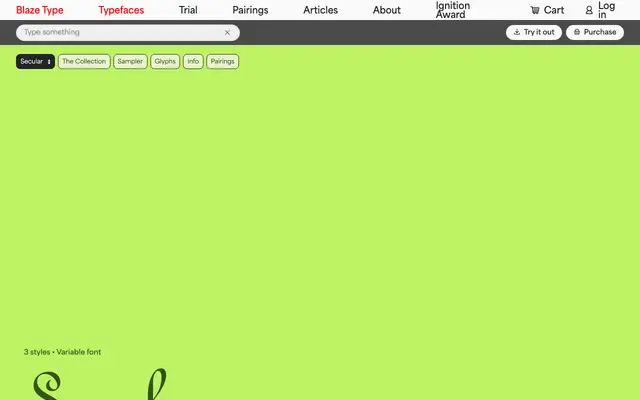
Secular
A three-weight script family by Bouk Ra drawn from the French Ronde tradition, with circular uppercase strokes and stylistic alternates for display work.
Designed by Bouk Ra and released in 2023, Secular takes its cues from French Ronde Scripts spanning the 17th to 20th centuries. The uppercase letters are built around circular stroke construction, giving the family a formal, upright quality distinct from slanted cursive scripts. Three weights from Thin to Regular offer tonal range for logotypes, headlines and pull quotes, with stylistic alternates providing additional variation.
Secular is explicitly modelled on French Ronde Scripts of the 17th to 20th centuries, a calligraphic script tradition with circular, upright letterforms rather than slanted cursive construction.